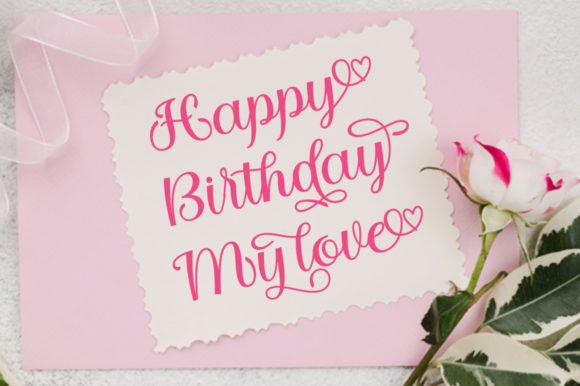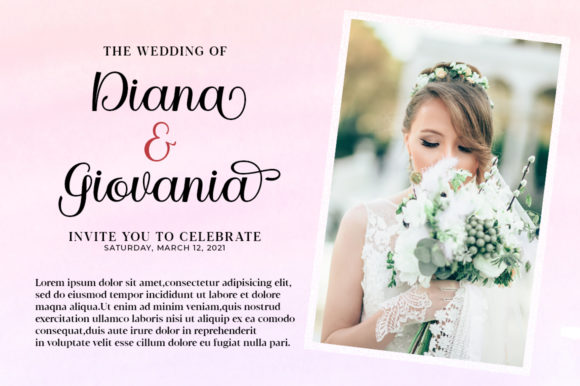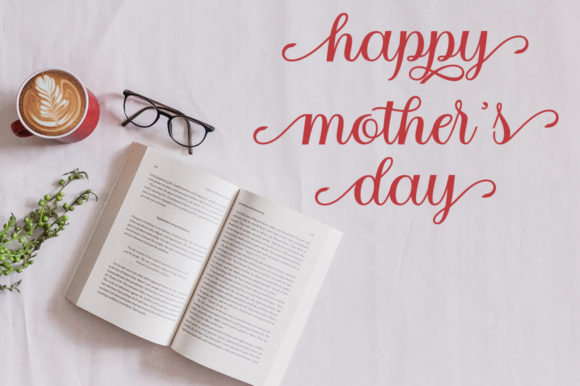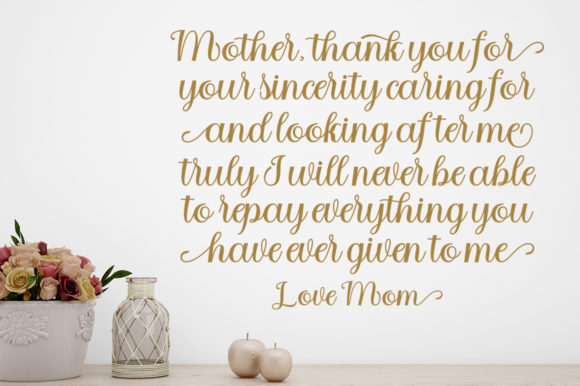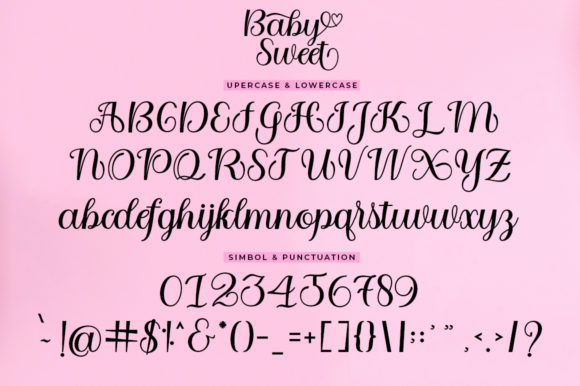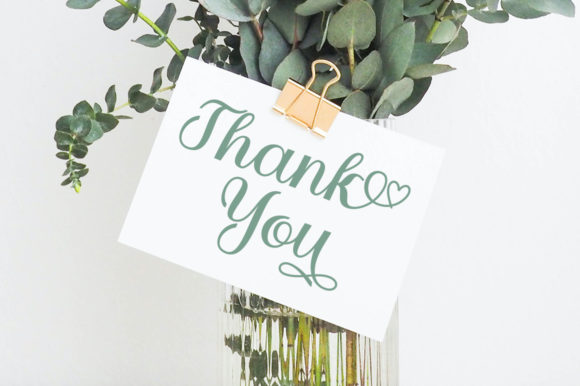
Baby Sweet Font: The Ultimate Choice for Creative Projects
Are you a designer, crafter, or DIY enthusiast looking for a font that can add a touch of sweetness and friendliness to your creative projects? Look no further than the Baby Sweet Font! This adorable handwritten font is designed to bring a smile to your face and a bounce to your designs. With its gorgeous swashes and ligatures, Baby Sweet is the perfect choice for anyone looking to add a personal touch to their work.
What Makes Baby Sweet Font So Special?
Baby Sweet is a cute and bouncy handwritten font that exudes warmth and friendliness. Its unique and playful design makes it perfect for a wide range of creative projects, from social media graphics and Instagram posts to calligraphy scripts and DIY crafts. The font features beautiful swashes and ligatures that add a touch of elegance and sophistication to any design.
Key Features of Baby Sweet Font
- Cute and Bouncy Design: Baby Sweet Font has a playful and energetic design that’s sure to capture the attention of your audience.
- Gorgeous Swashes and Ligatures: The font features stunning swashes and ligatures that add a touch of elegance and sophistication to any design.
- Handwritten Style: Baby Sweet Font has a beautiful handwritten style that’s perfect for adding a personal touch to your designs.
- Versatile: The font is incredibly versatile and can be used for a wide range of creative projects, from social media graphics to calligraphy scripts.
Uses for Baby Sweet Font
Baby Sweet Font is perfect for a variety of creative projects, including:
- Social Media Graphics: Use Baby Sweet Font to create eye-catching social media graphics, Instagram posts, and Facebook updates.
- Calligraphy Scripts: The font’s beautiful swashes and ligatures make it perfect for calligraphy scripts and hand-lettering projects.
- DIY Projects: Add a personal touch to your DIY projects, such as handmade cards, gift tags, and scrapbooking pages.
- Branding and Packaging: Use Baby Sweet Font to create unique and memorable branding and packaging designs.
Why Designers and Crafters Love Baby Sweet Font
Designers and crafters love Baby Sweet Font for its unique and playful design. The font’s gorgeous swashes and ligatures make it perfect for adding a touch of elegance and sophistication to any design. Additionally, the font’s versatility and ease of use make it a favorite among creative professionals and hobbyists alike.
Tips for Using Baby Sweet Font
- Experiment with Different Sizes and Colors: Try out different sizes and colors to find the perfect combination for your design.
- Use Swashes and Ligatures: Take advantage of the font’s gorgeous swashes and ligatures to add a touch of elegance and sophistication to your design.
- Pair with Other Fonts: Experiment with pairing Baby Sweet Font with other fonts to create unique and interesting combinations.
In conclusion, Baby Sweet Font is a must-have for designers, crafters, and DIY enthusiasts looking to add a touch of sweetness and friendliness to their creative projects. With its gorgeous swashes and ligatures, cute and bouncy design, and versatility, Baby Sweet Font is the perfect choice for anyone looking to turn their creative ideas into true pieces of art.